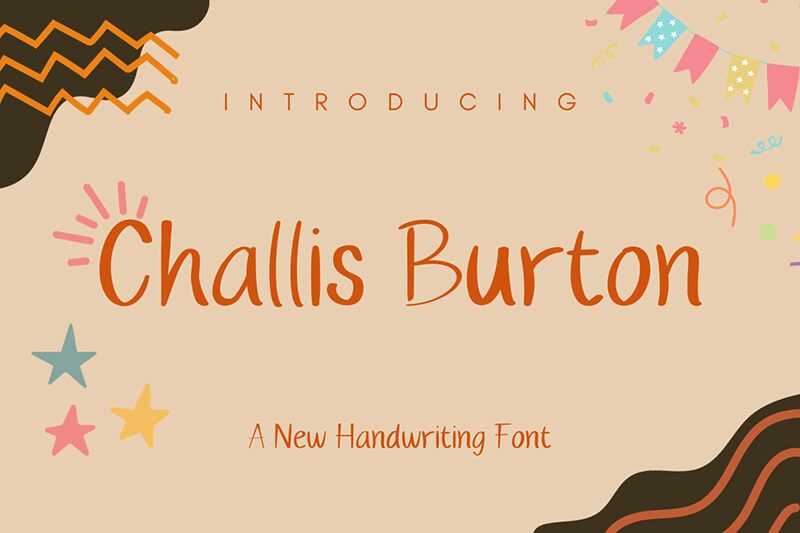
Challis Burton font is a handwritten font combining modern style, informal elegance, and approachable attitude all in a single free font. It extends a friendly aesthetic through its casual and warm tone that grants each character a personal touch. Inspired by handwriting fonts, this font tries to mimic the actual handwritten spelling of any written words. It combines geometrical and organic shapes for a well-balanced text, mostly noticeable in the larger sizes.
Challis Burton is a versatile typeface suitable for several applications in the digital and print design fields. Each character maintains a uniform line thickness for designs that look neat and clean. Experiment with it in personal cards, invitations, stationery items, and business-related printed projects. The font is also good at logo design, branding, and packaging projects. Use it to reflect a cozy texture in your website design, magazines, books, or shop design.